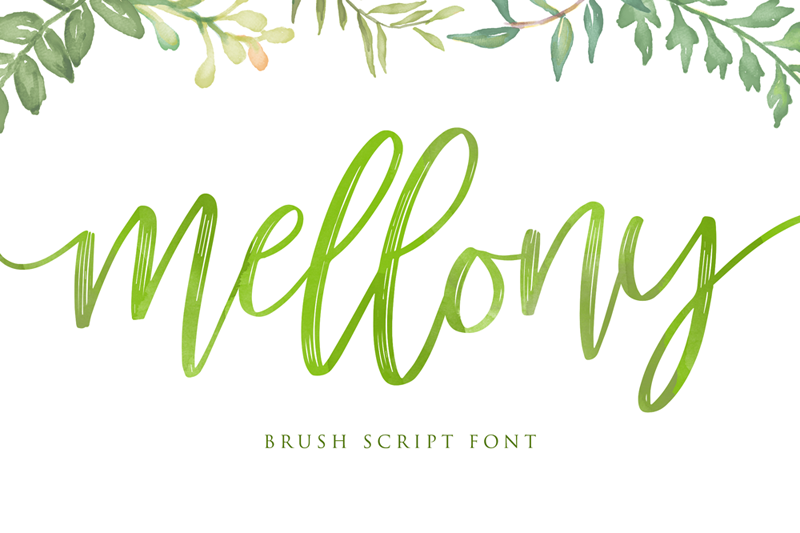
Mellony Script
Mellony Script Font
Mellony brush script font
Introducing Mellony brush script font which has a elegant hand lettering brush style. So it looks natural like a handmade, mellony family is unique because have a more choice characters, like a swash, end characters and many more. This font is best used for your design project that has the concept of fun, girly, romantic and elegant. Can also be applied to the design of a logotype, header website, wedding logo, romantic design, make some lettering a quote, t-shirt design etc.